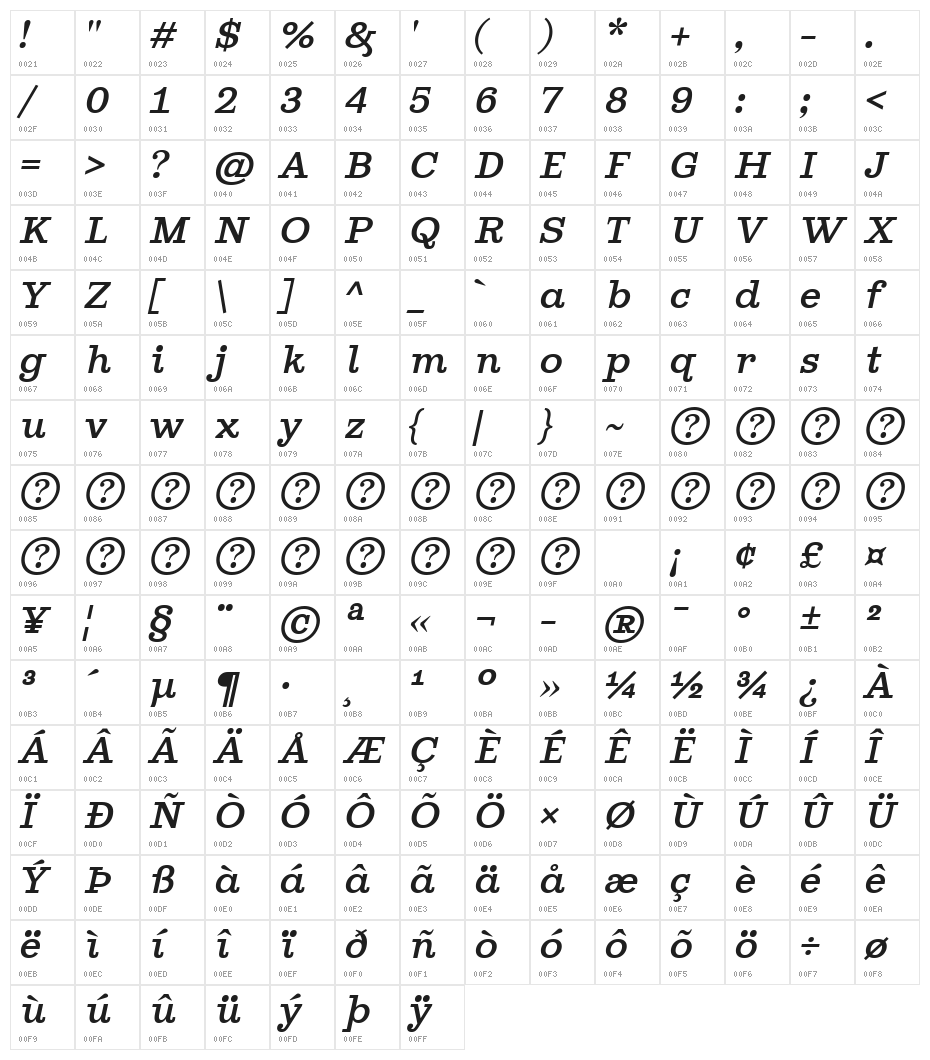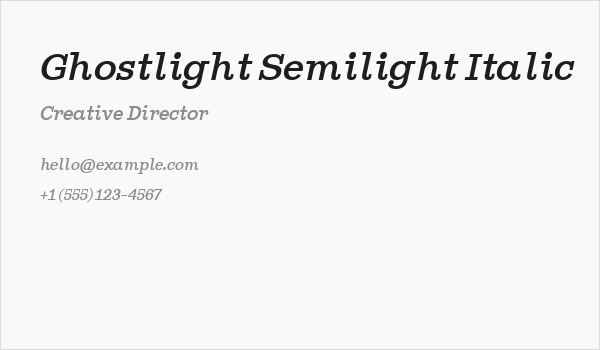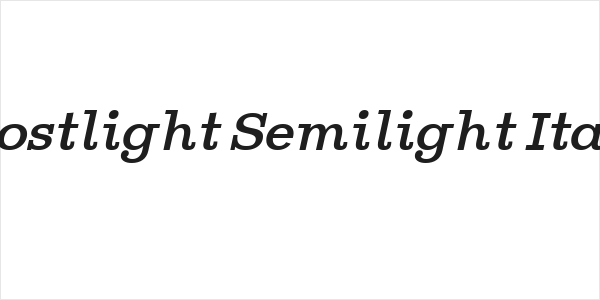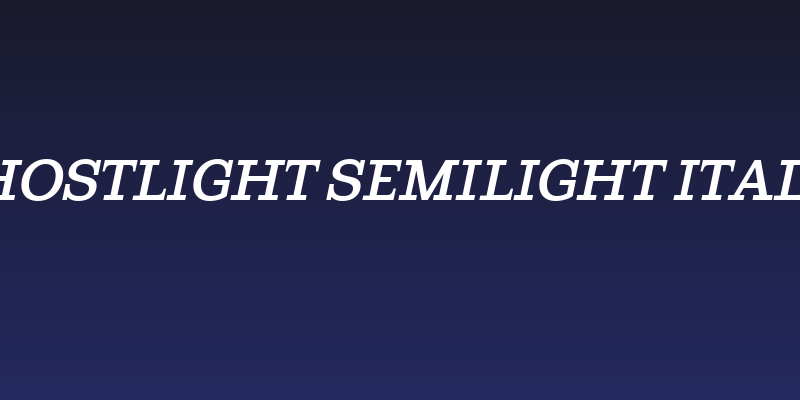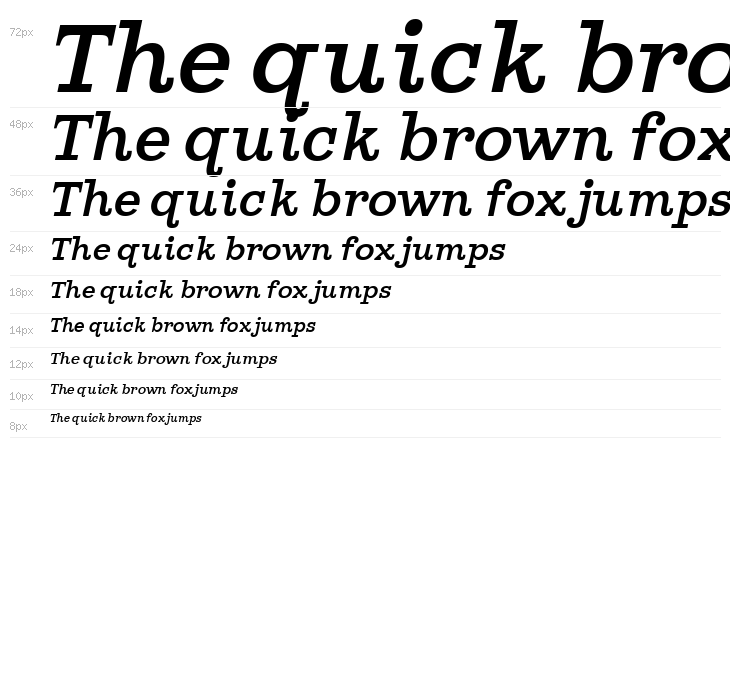
Ghostlight Semilight Italic Font
Ghostlight Semilight Italic Description
This font exhibits a refined and elegant style with a slight italic slant, giving it a sophisticated and dynamic appearance. The characters are well-balanced with smooth curves and a moderate contrast in stroke thickness, enhancing readability while maintaining a stylish flair. The uppercase letters are bold and commanding, while the lowercase letters offer a softer, more approachable feel. Numerals are clear and distinct, making them suitable for both display and text settings. Special characters are thoughtfully designed, ensuring consistency across the typeface. This font is versatile, suitable for a variety of applications where a touch of elegance and modernity is desired.
Proposed ProjectsIdeal for branding, editorial design, invitations, and luxury product packaging.